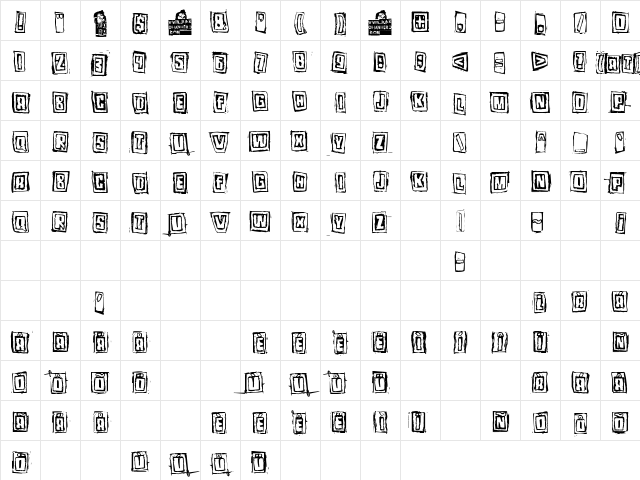
Pozo Regular Free Font
Pozo Regular
Designer: junkohanhero
Design Context for Pozo
Pozo is a composed and adaptable typeface that performs quietly and consistently across a wide range of design contexts.